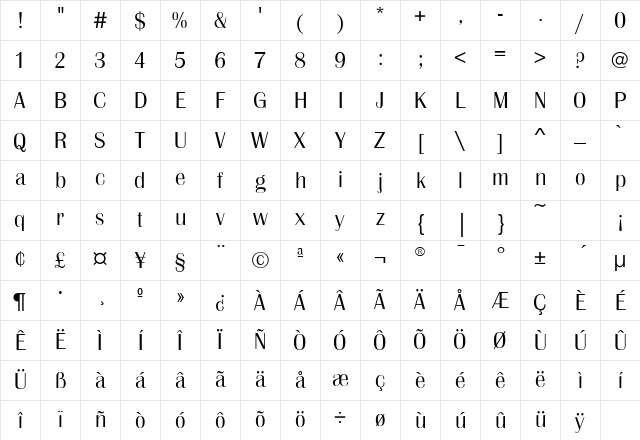
BritannicEFLight Regular
Design Context for BritannicEFLight
BritannicEFLight is a composed and adaptable typeface that performs quietly and consistently across a wide range of design contexts. Its slender proportions lend an understated elegance to any composition.